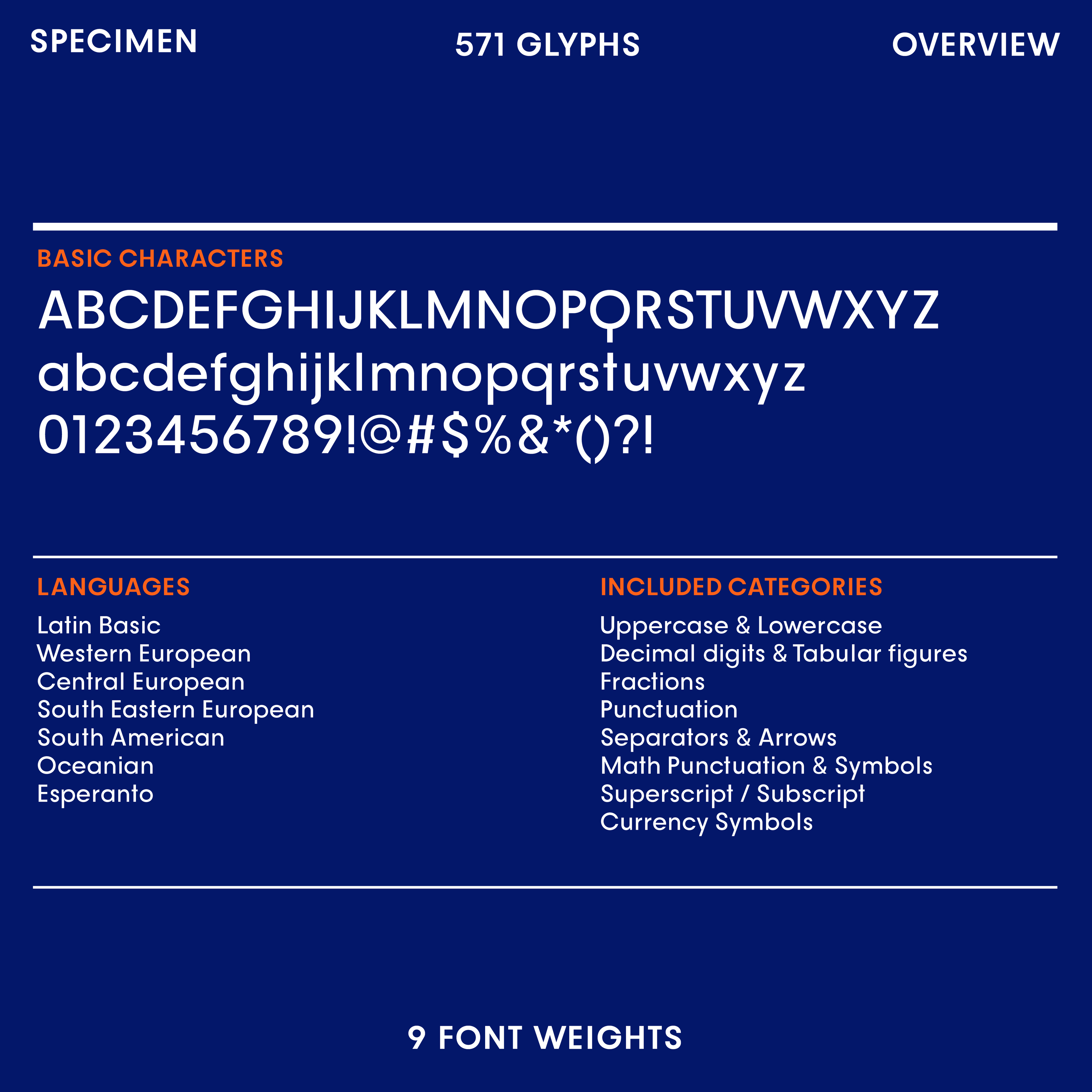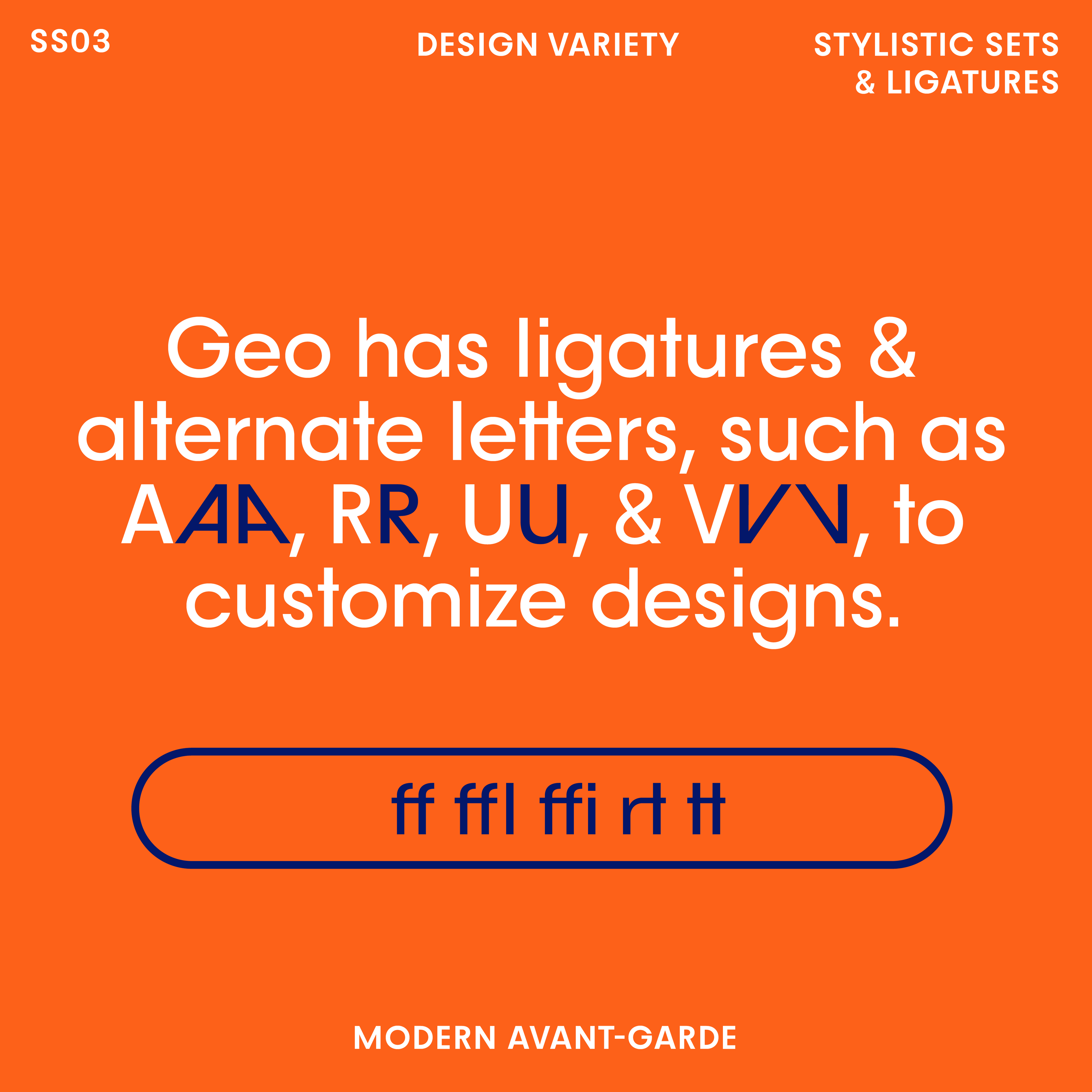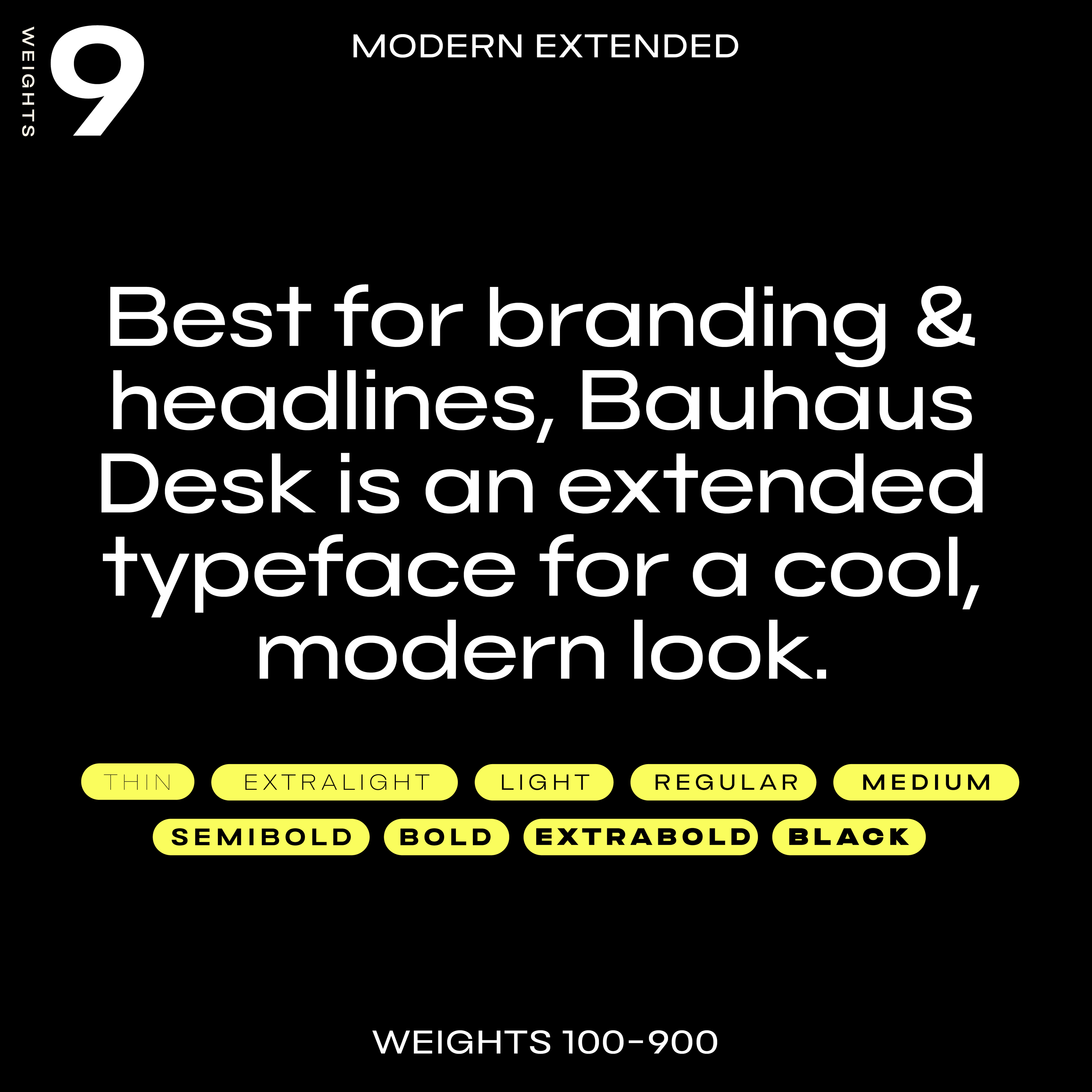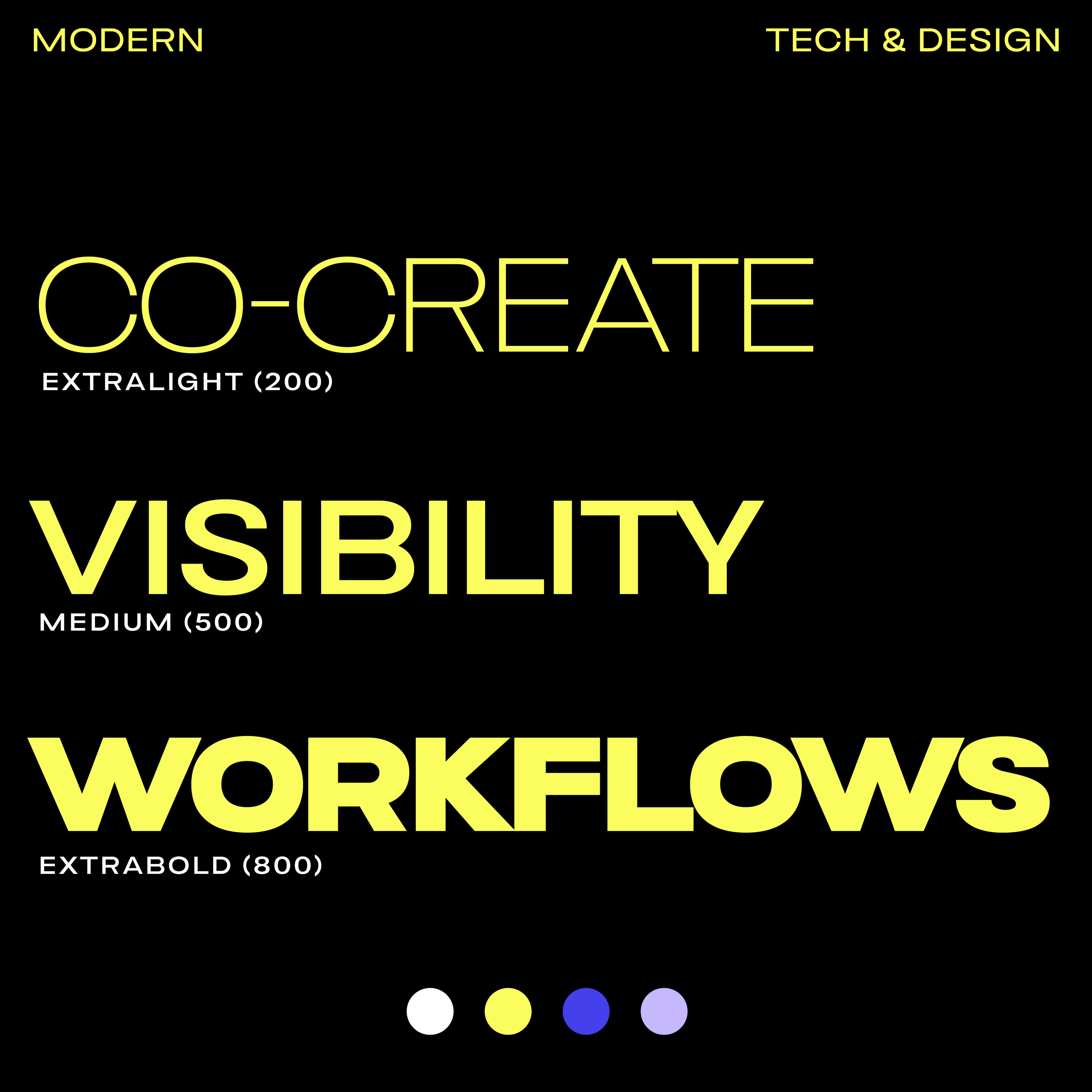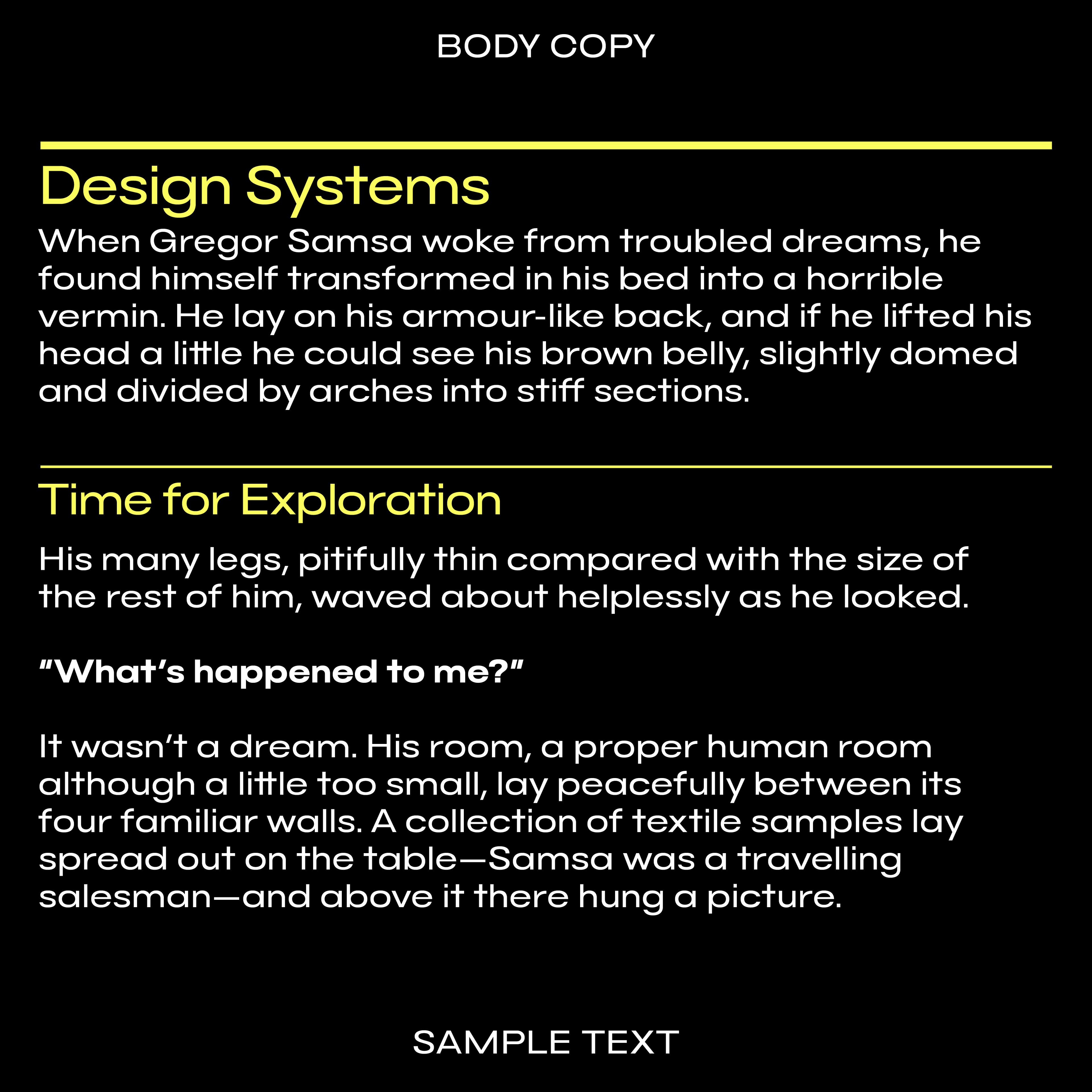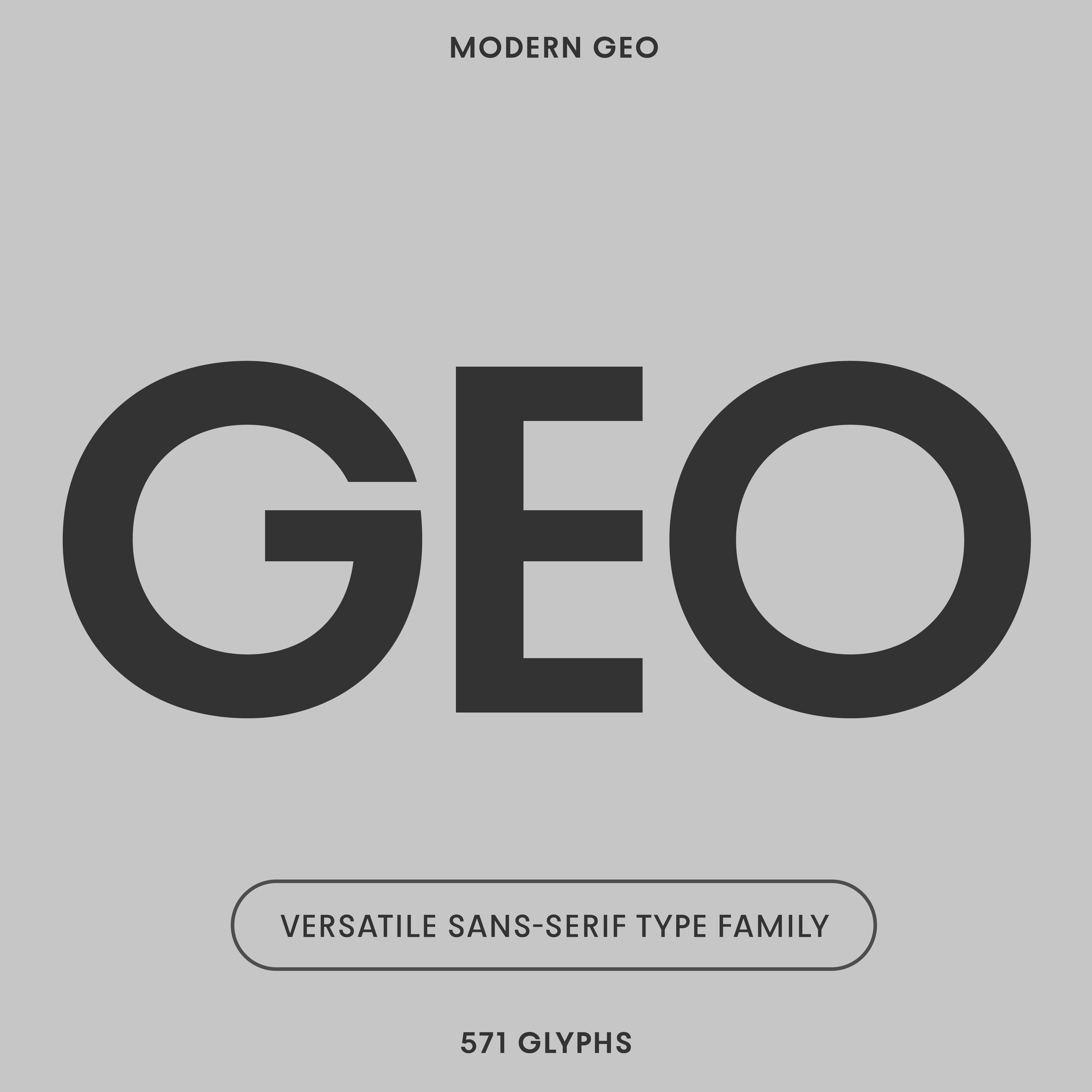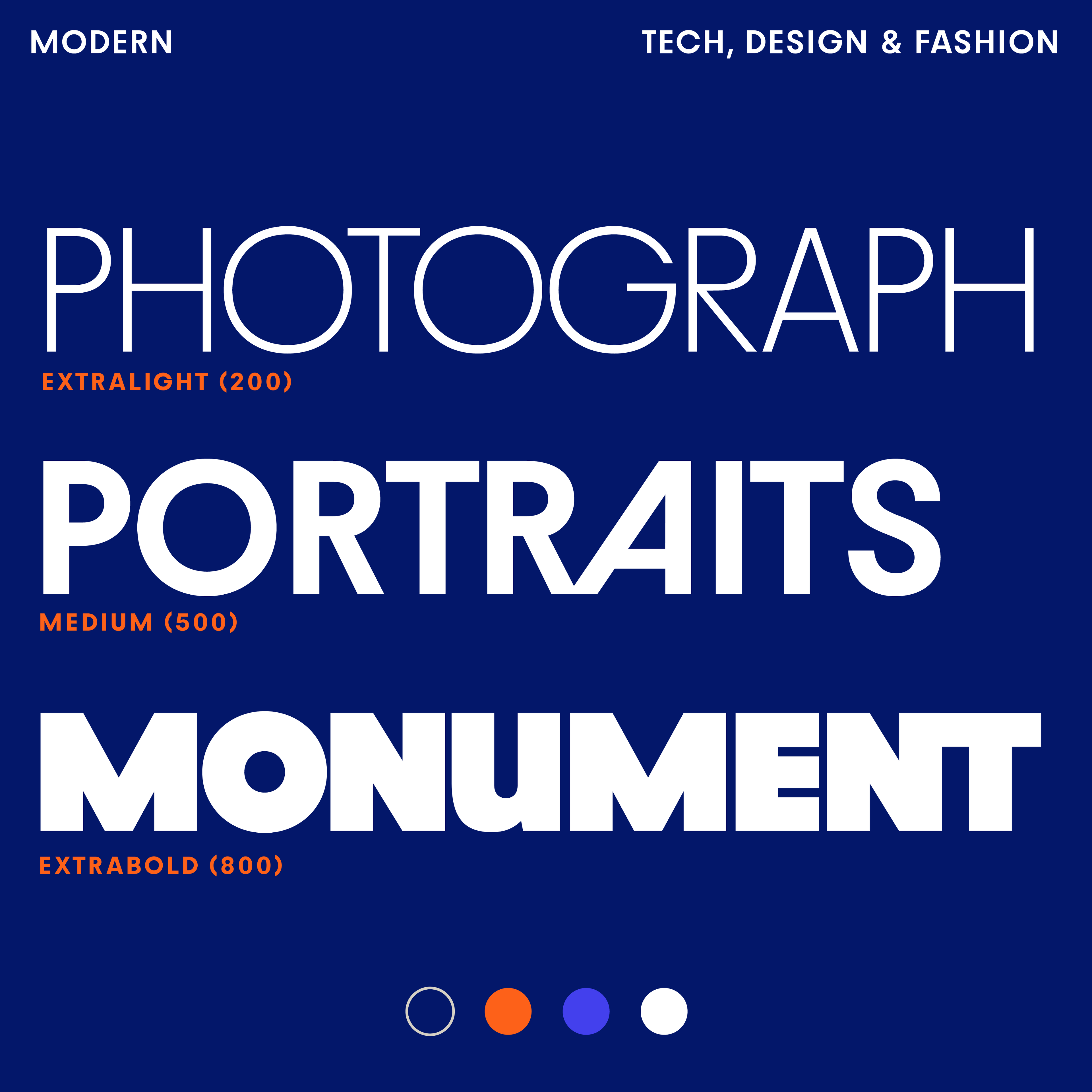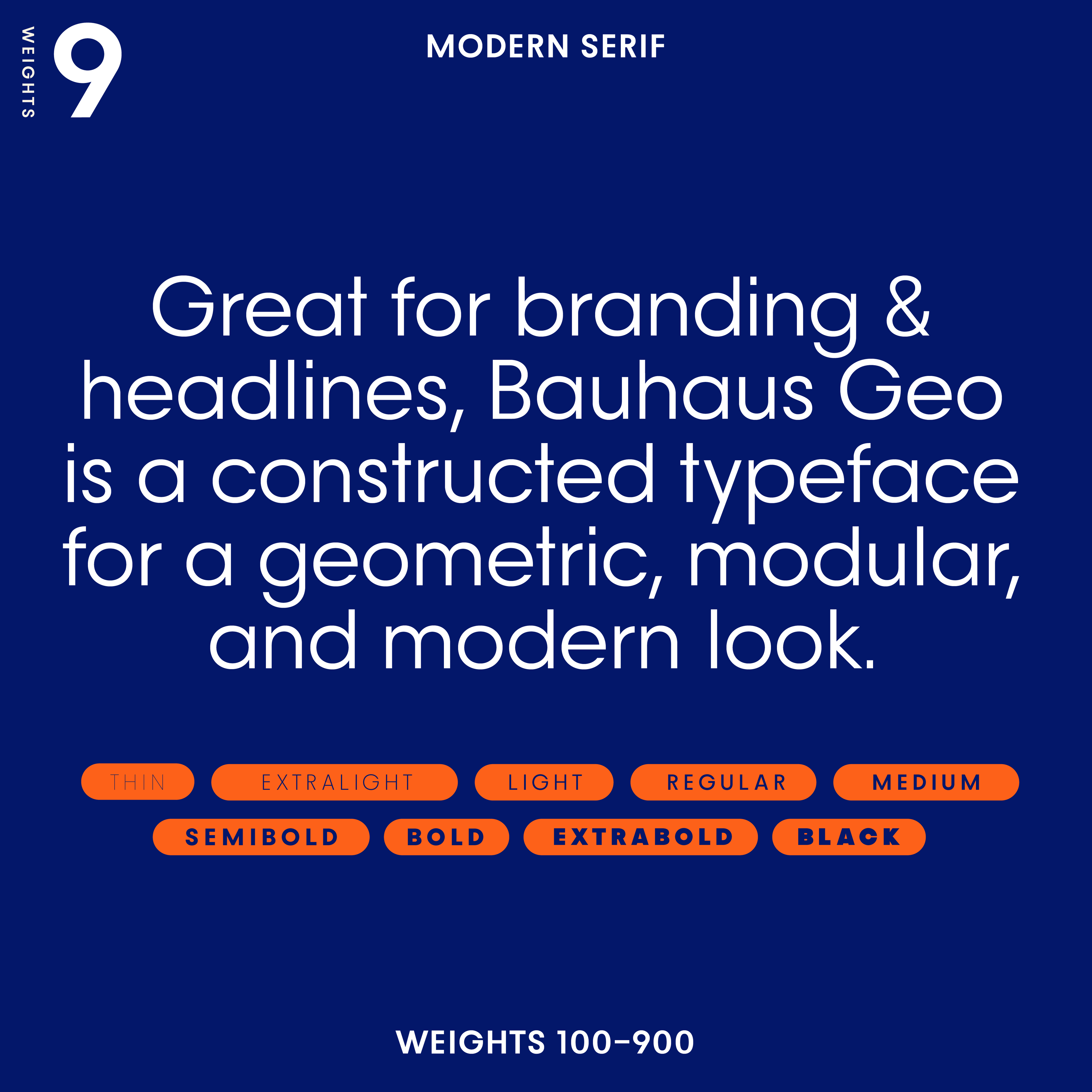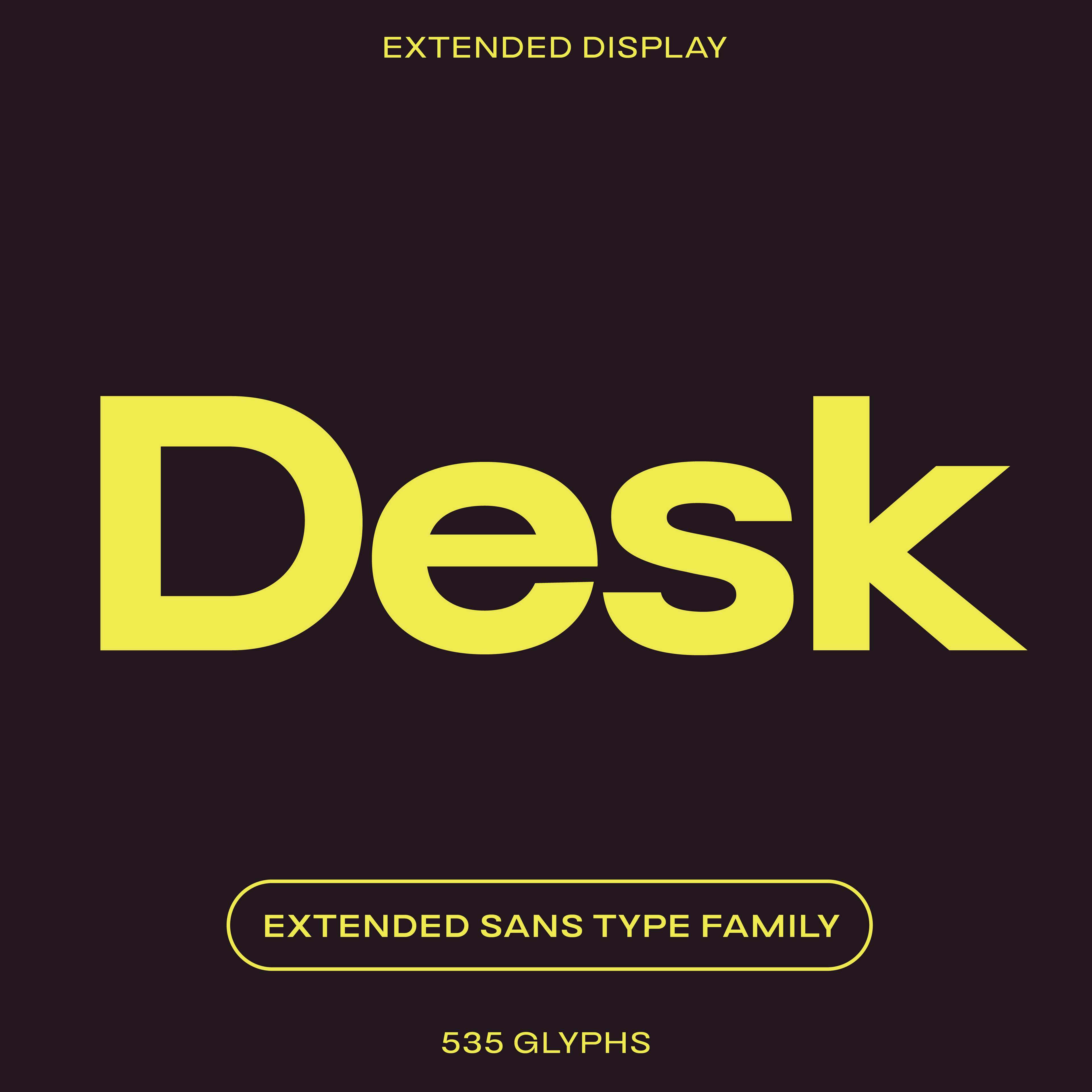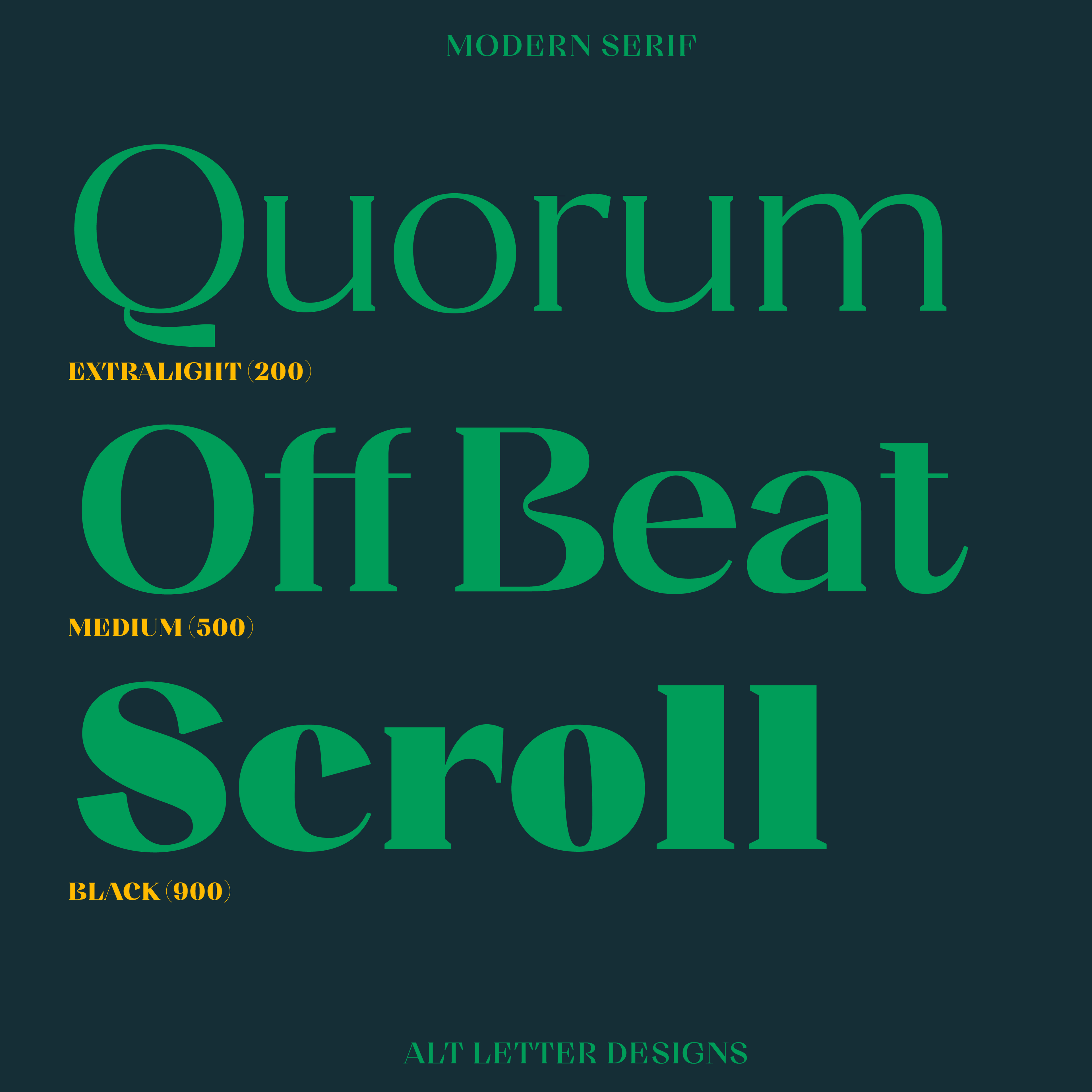
Modern Fonts
Modern Fonts: A Showcase of Contemporary Typefaces from Our Collection
In today’s designs, a world with an ever-growing library of typefaces from free to paid to custom fonts, selecting the ones that support tone, style, and brand essence plays a strategic role in any brand project. Modern fonts, often characterized by their clean lines, contemporary aesthetics, and versatility, are a staple in graphic design. Our font shop offers a curated collection of modern sans serif, serif, and script fonts designed to highlight modernity. Here, we explore what makes a font modern and showcase some standout examples from our collection.
Defining Modern Fonts
1. Bolder Font Weights: Modern fonts often feature bolder weights, giving them a striking and impactful presence. Bold fonts can command attention and convey confidence and strength.
2. Sans Serif and Modern Serifs:
- Sans Serif Fonts: Known for their clean, minimalistic design, sans serif fonts are inherently modern. Examples from our collection include Scal, Mosy, Bool, and Pout.
- Modern Serif Fonts: While serifs are traditionally considered less modern, they can be updated by opening up the glyph shapes. For instance, our Quil font features open and curved letters like B and R, adding a modern twist to a classic design.
3. Case Usage and Spelling: Creatively using uppercase or lowercase letters can add a modern touch to your typography. Experiment with unconventional casing to make your text stand out.
4. Contrast in Font Sizes: Creating a stark contrast between larger and smaller font sizes is a hallmark of modern design. This approach can add visual interest and hierarchy to your layouts.
5. Unique Character Features:
- Bulky Tops: Fonts with slightly bulkier tops, such as Mosy, offer a unique and modern appearance.
- Contrast Elements: Fonts that incorporate natural contrast elements, even if they’re not explicitly contrast fonts, add a contemporary flair. Bool’s lighter crossbar in the letter e is a perfect example.
- Inverted Contrast: Peculiar and trending styles like inverted contrast fonts (e.g., Pout) are gaining popularity for their distinct look.
Examples of Modern Fonts from Our Collection
Sans Serif Fonts:
- Scal: A modern take on the classic Futura font, Scal offers clean lines and a contemporary spin.
- Mosy: This font features slightly bulkier tops, adding a unique and modern character to the typeface.
- Bool: With its lighter crossbar in the letter e, Bool provides a fresh and modern interpretation of traditional sans serif fonts.
- Pout: An example of an inverted contrast font, Pout is both peculiar and trending, making it an excellent choice for a distinctive modern look.
- Soya: Our new release, Soya, is an extended typeface perfect for branding, titles, and body copy. It features wide, generously rounded letters with distinct cut-off terminals, making it chic, expressive, and personal. Soya works great in all uppercase for logo designs and titles, offering an elegant and upmarket look in lighter styles and a younger, louder look in bolder styles.
- Desk: Bauhaus Desk is a geometric, extended typeface best for branding and headlines. Its cool, straightforward look makes it ideal for contemporary designs.
- Byrl: Bauhaus Byrl is a super-extended typeface with slim ink traps, perfect for modern logos and titles. It includes many ligatures and alternate letters, such as two options for A, E, F, G, M, and O, allowing for customizable designs.
Serif Fonts:
- Quil: Bauhaus Quil is a serif type with a cool, modern twist. Its open and curved letters B and R communicate education, craft, and personality. Quil’s minimal serifs and slightly left-tilted letter axis give it a contemporary but classic, professional look.
- Trending Colors: Choose colors that are currently trending in specific industries. For example, purple shades are popular in tech branding, while dark, muted forest greens are favored for sophisticated finance, beauty, and wellness products.
In a Nutshell
Modern fonts are a paramount element of contemporary design, offering a strong voice and a trending aesthetic. By weaving in bolder weights, thoughtful casing, using unique character features, and appropriate color palettes, you can ensure your designs reflect modernity.